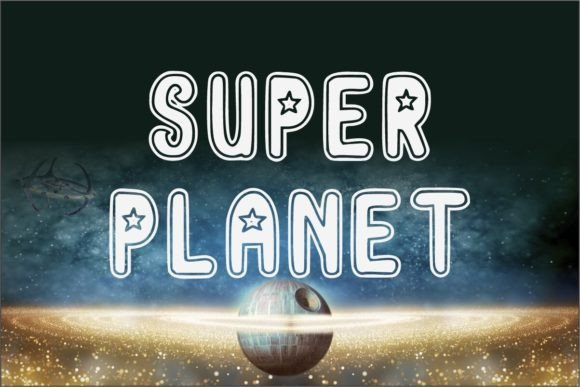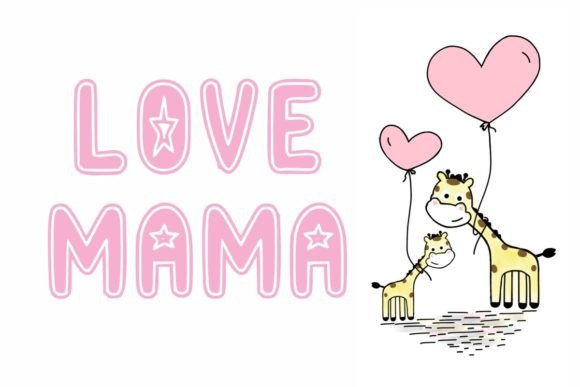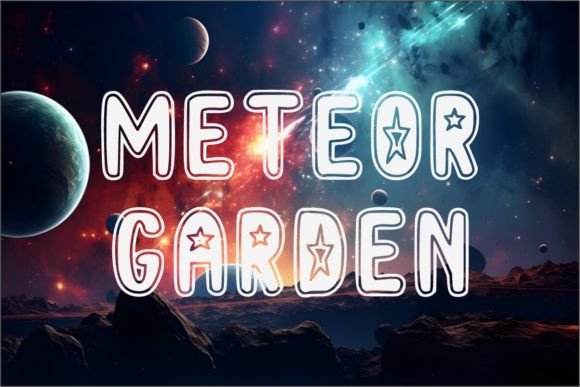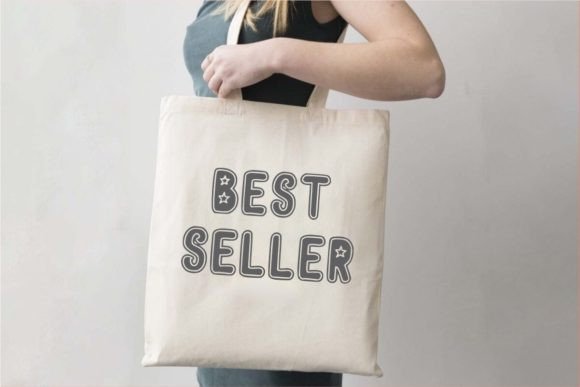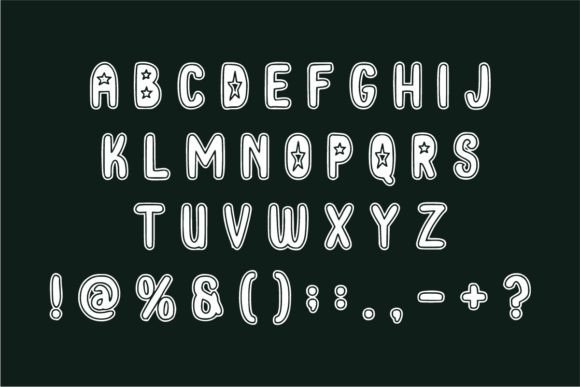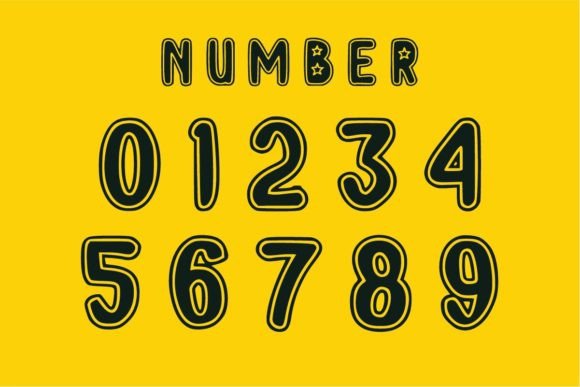
The Quest for the Perfect Font: Discovering Galaxy Space
I’ll never forget the time I was working on a children’s book design project, and I just couldn’t find the right font. The client wanted something fun, friendly, and easy to read, but not too childish. I scoured the internet, tried out countless fonts, and still, nothing seemed quite right. That was until I stumbled upon Galaxy Space – a game-changing display font that has since become a staple in my design toolkit.
A First Impression: What Makes Galaxy Space Special
Galaxy Space is a fun and friendly display font, perfect for children-themed designs and school projects. Its casual and easy-to-read character makes it an excellent choice for designers, crafters, and creative hobbyists looking for a font that exudes warmth and approachability.
What I Love About Galaxy Space
- ✨ Friendly and approachable character
- ✅ Easy to read, even at smaller sizes
- 🎉 Perfect for children-themed designs, school projects, and more
- 👍 Highly versatile, works well for both digital and print projects
While Galaxy Space is an excellent font, it’s not without its quirks. For instance:
- 🤔 Some characters may appear slightly condensed, which can affect the overall flow of text
- ⚠️ Limited support for non-English characters
Galaxy Space was designed with the intention of creating a friendly, approachable font for children’s designs and educational materials. The designer aimed to craft a font that felt both playful and professional, making it perfect for a wide range of creative projects.
Q: What type of projects is Galaxy Space best suited for?
A: Galaxy Space is perfect for children-themed designs, school projects, and any creative endeavor that requires a friendly, approachable font.
Q: Does Galaxy Space support OpenType features?
A: Yes, Galaxy Space supports OpenType features, including stylistic alternates and glyphs.